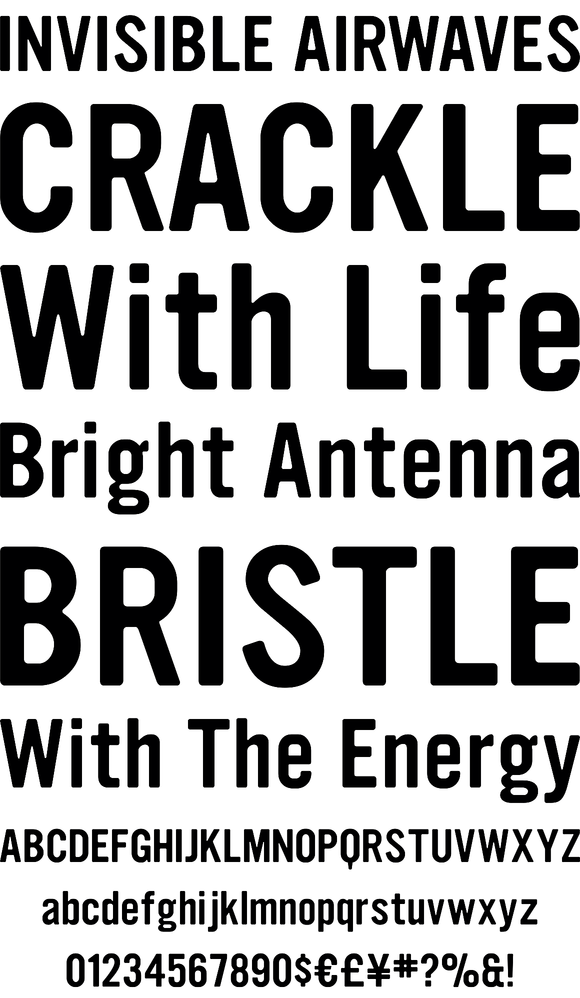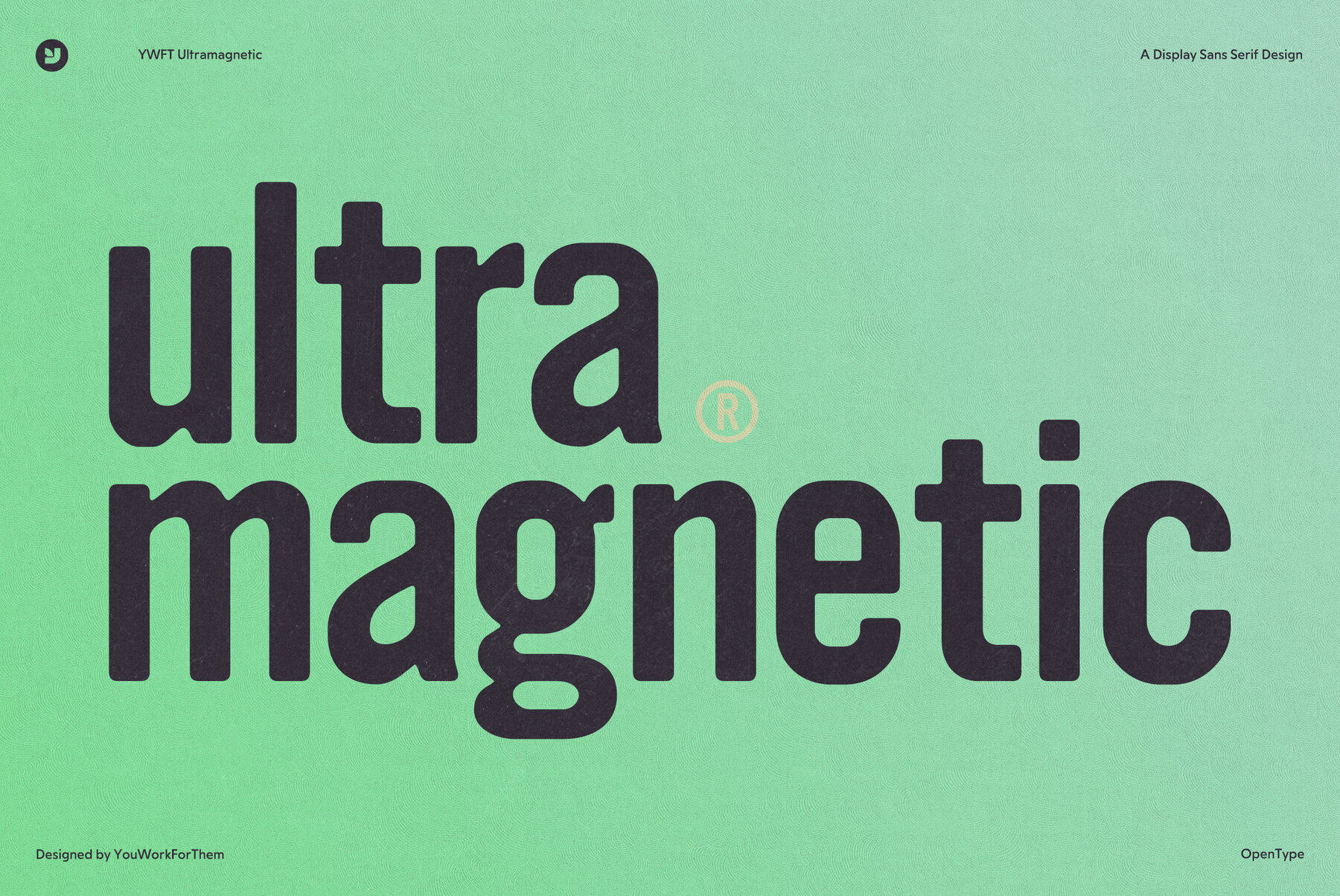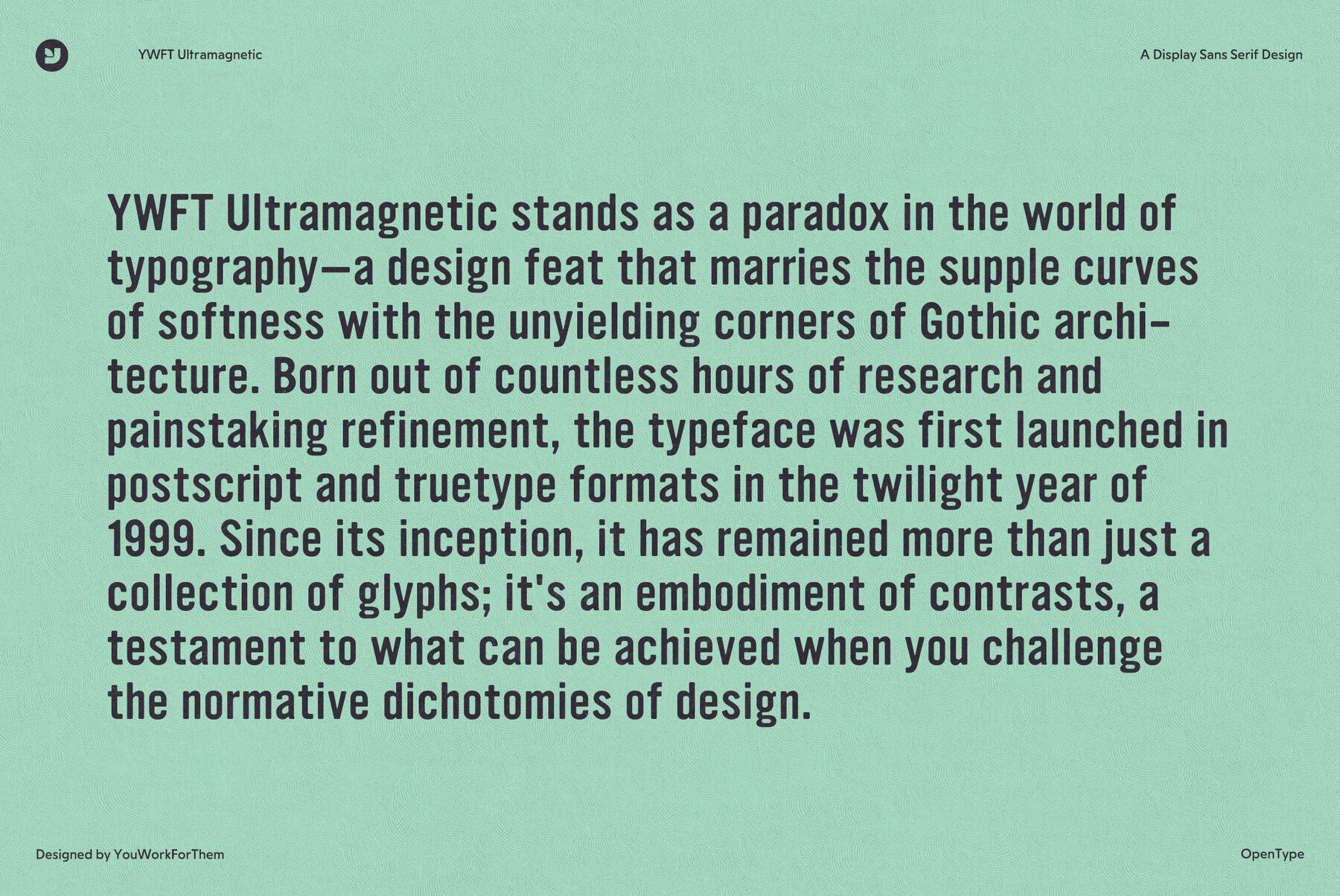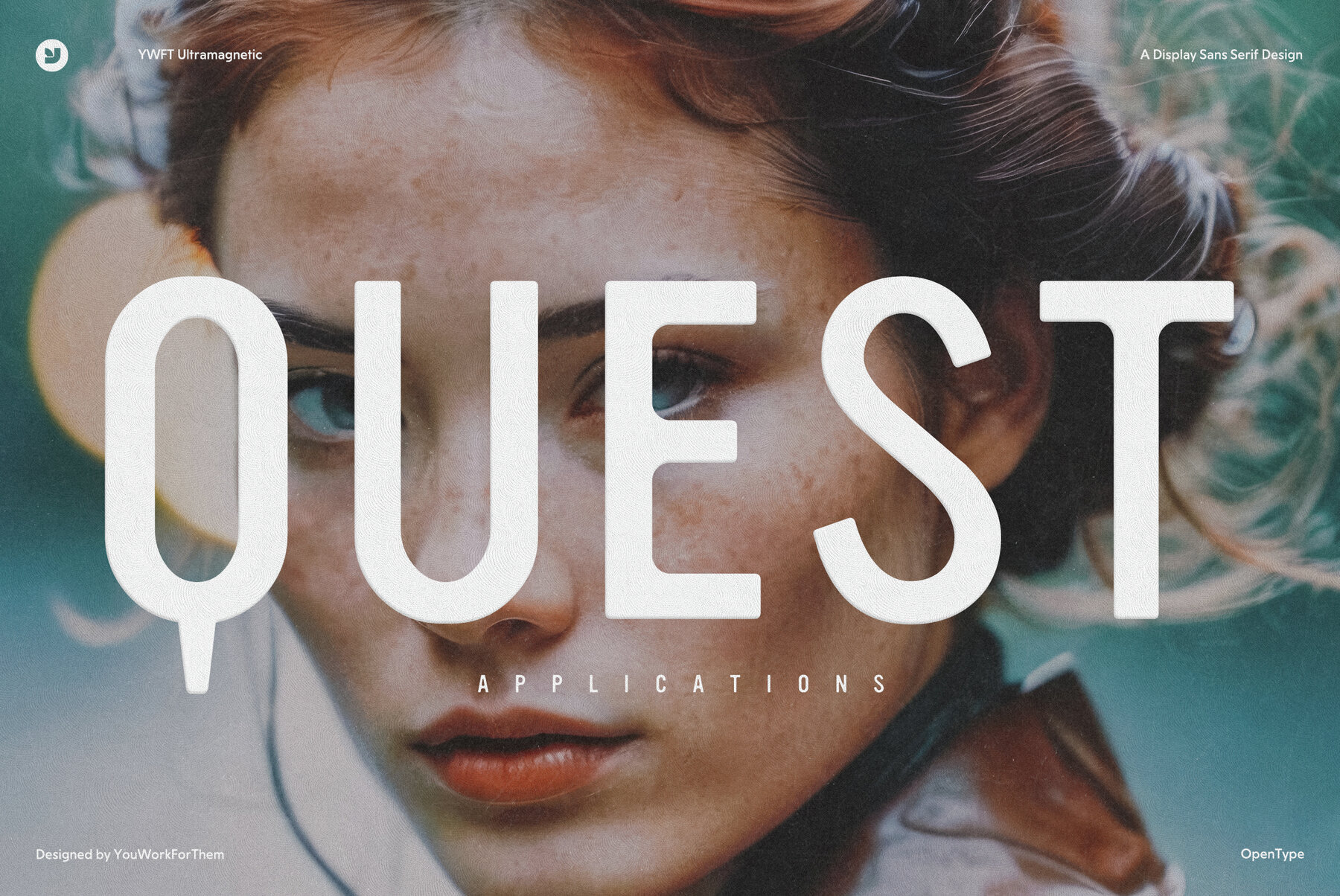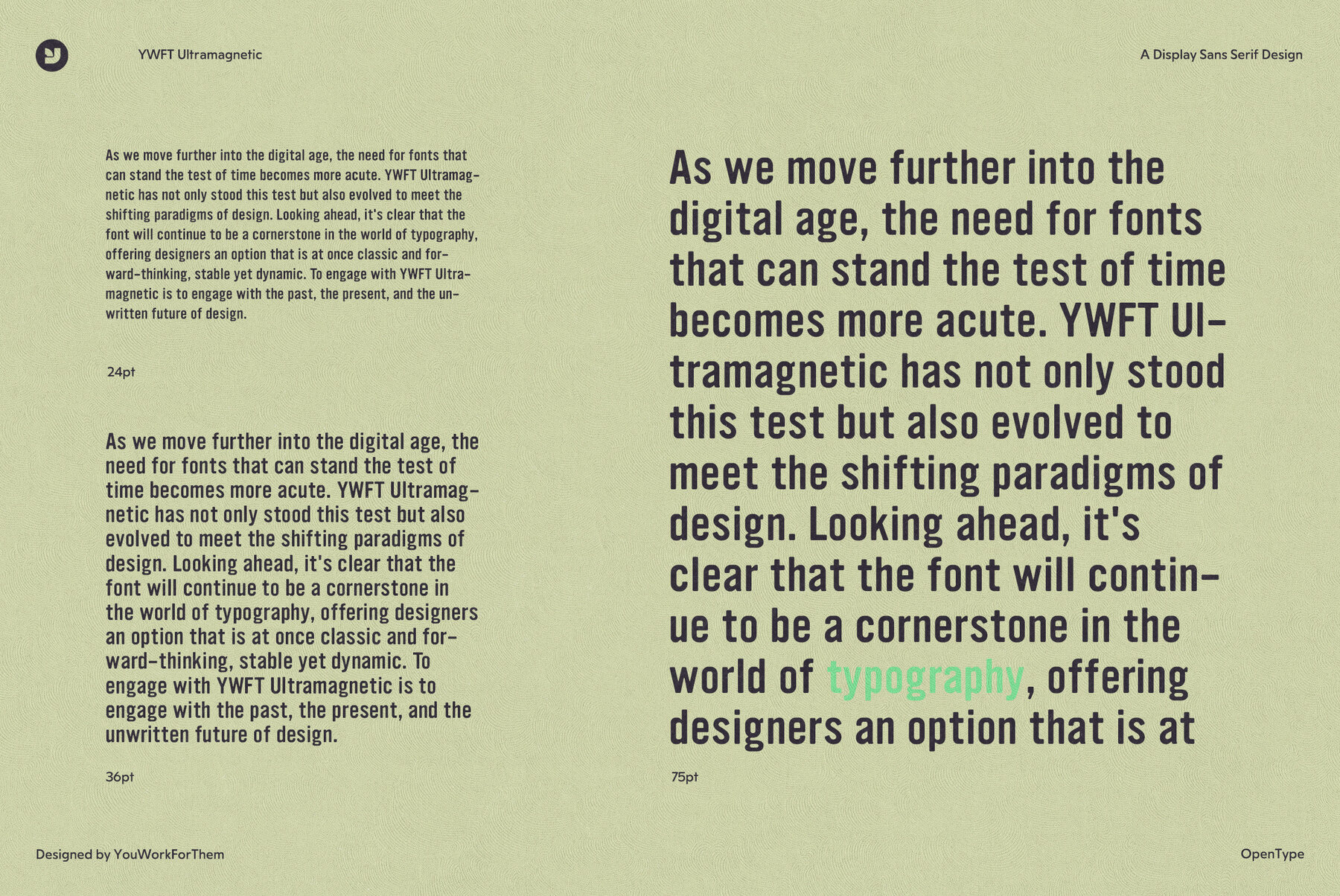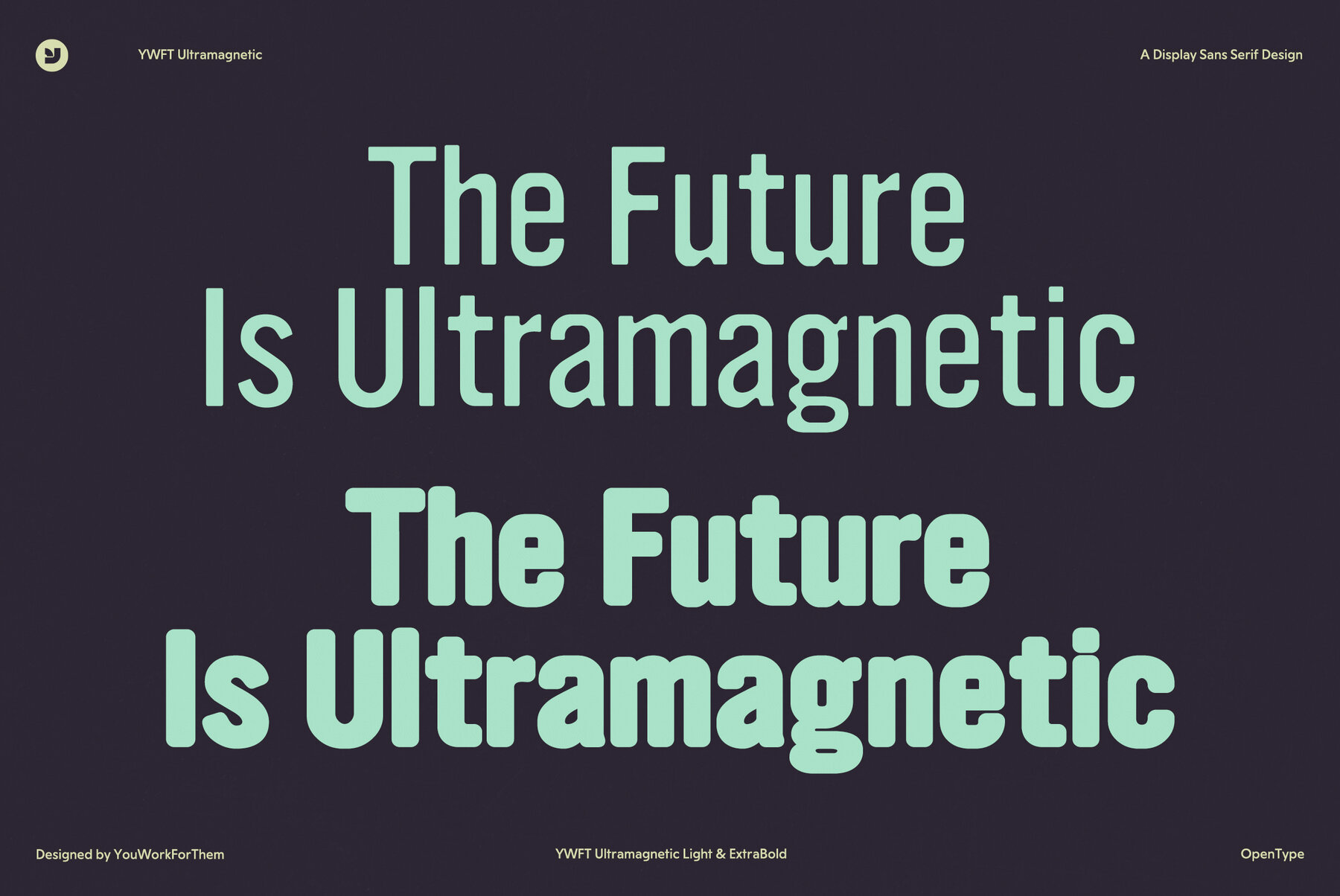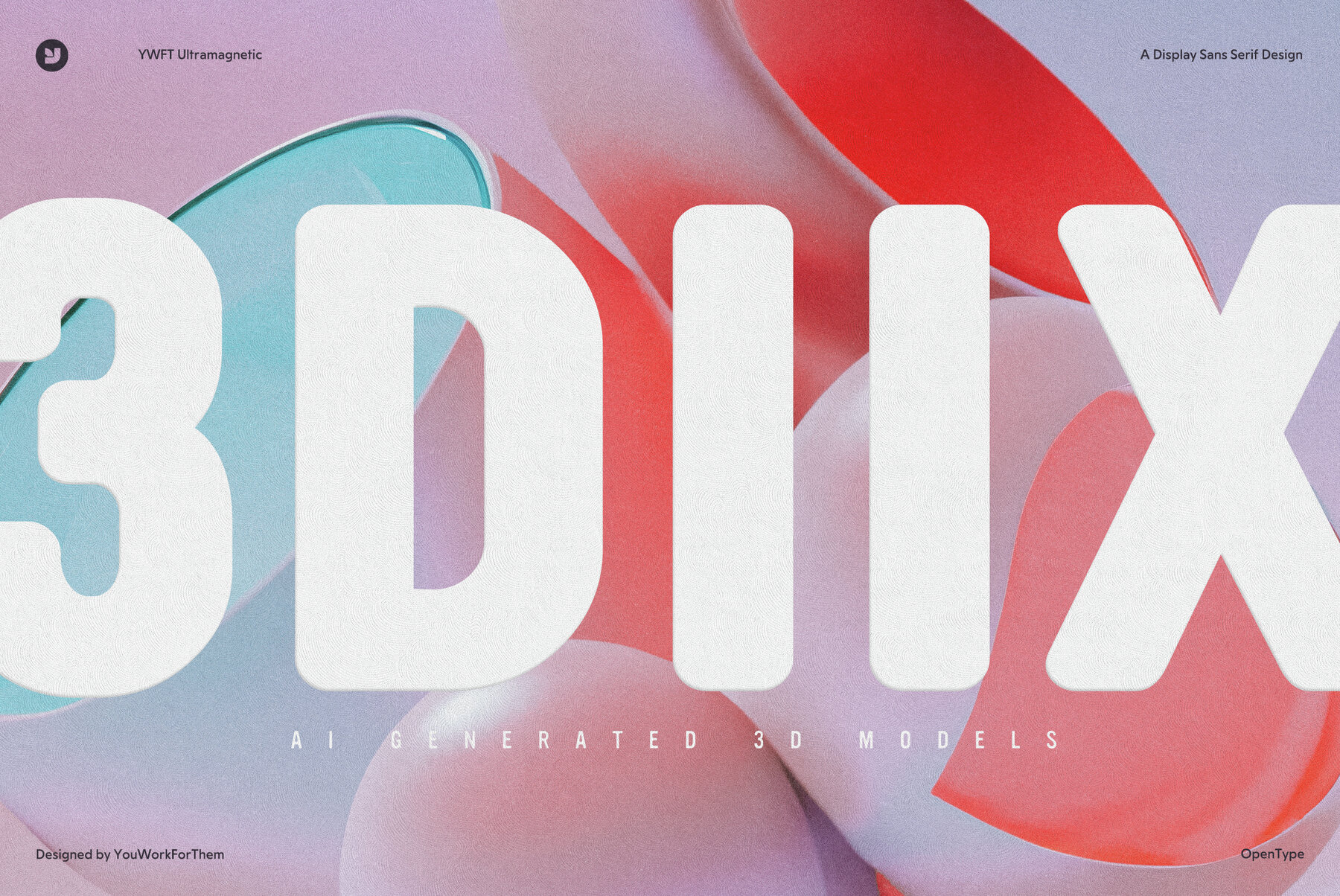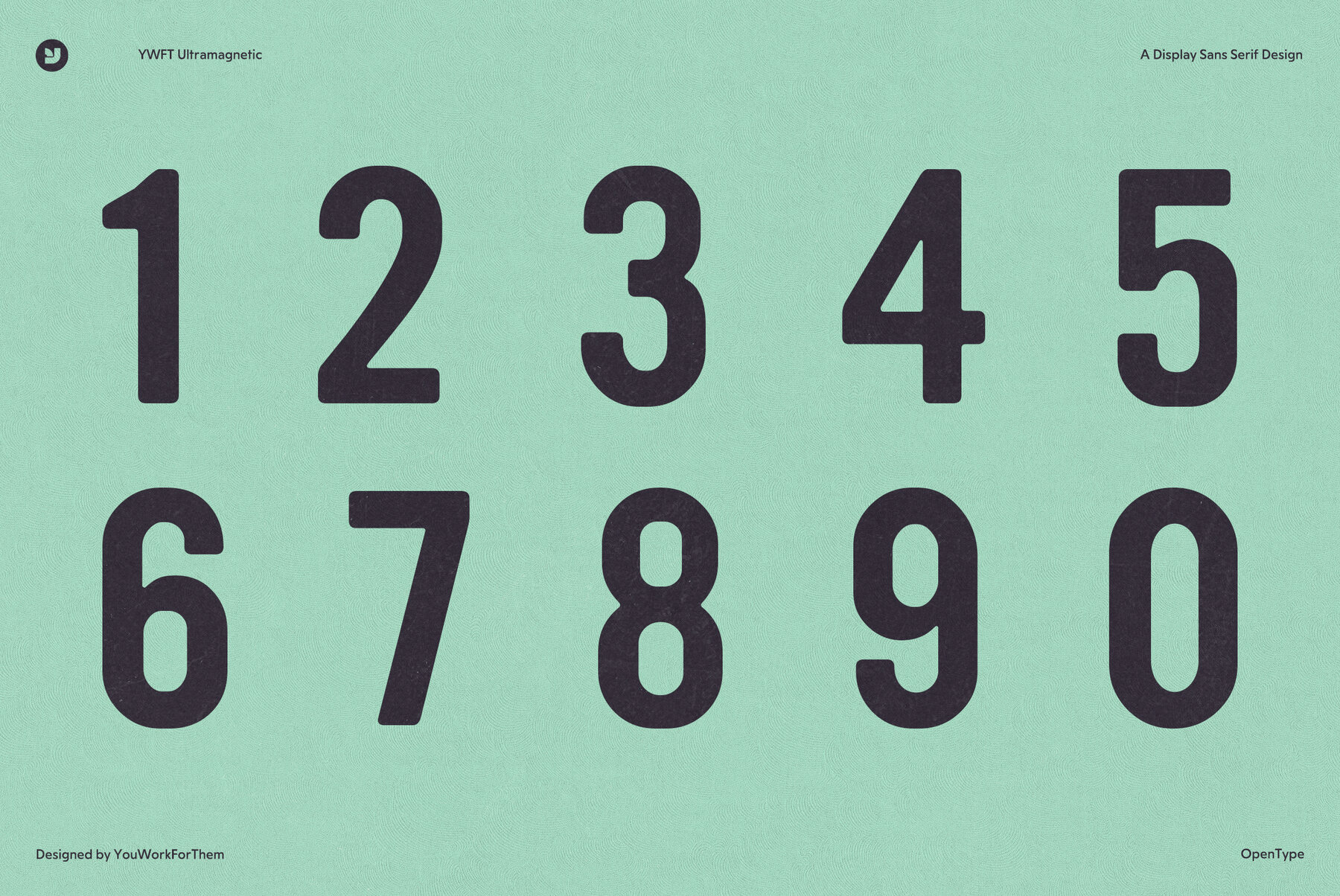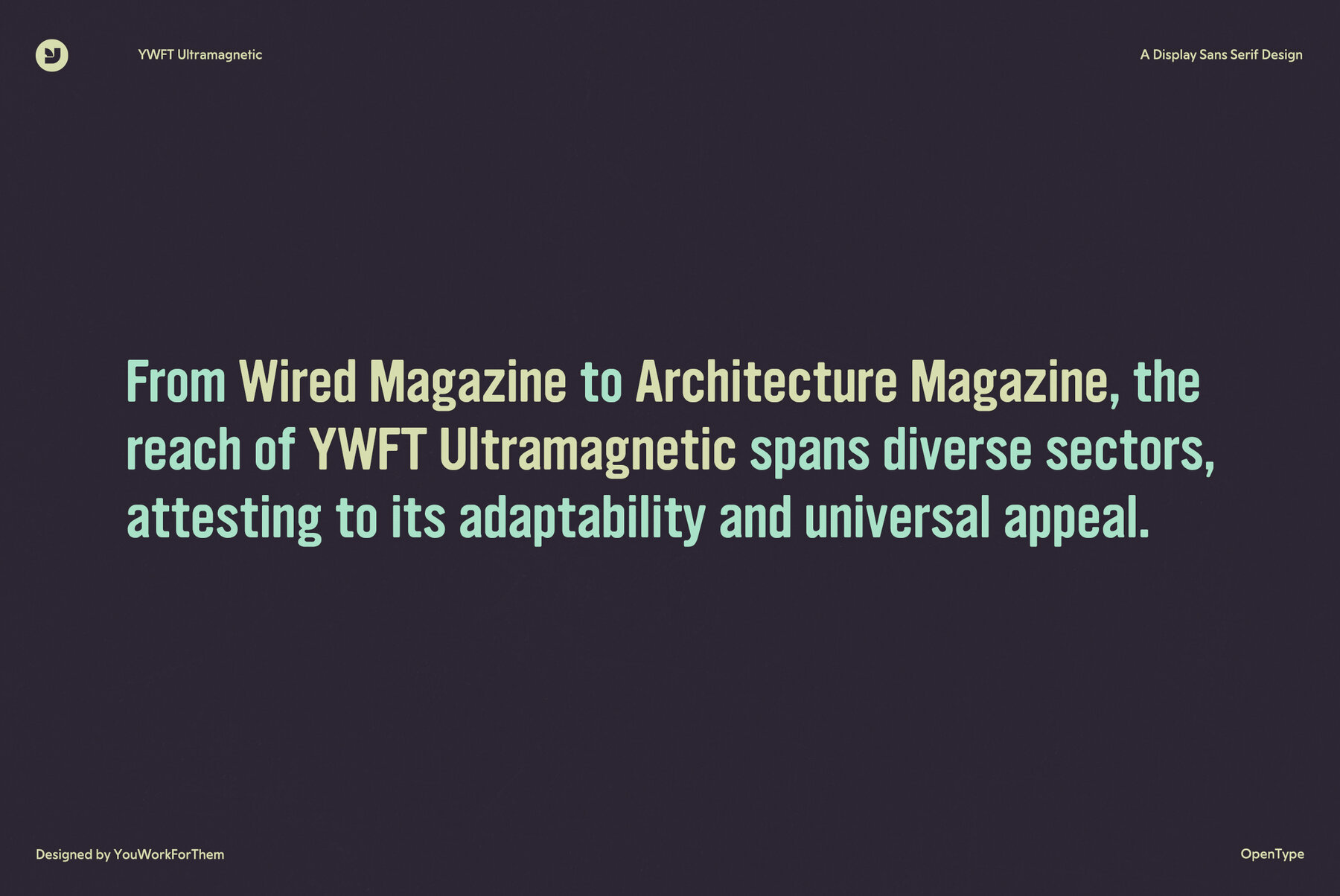
YWFT Ultramagnetic Font
For years, the elusive question has hovered in design circles: Can a typeface be both soft and gothic? YWFT Ultramagnetic not only answers this question affirmatively, but it also sets a benchmark in the category. Born out of meticulous research and multiple iterations, it's a typeface that has risen to be an industry favorite since its first release in 1999. Anchoring its position among YWFT's top-selling exclusives, Ultramagnetic has a storied history. Between 2002 and 2006, it dominated our top ten list, often claiming the coveted Number One spot. Its versatility and aesthetic appeal have made it a go-to choice for big names such as Harley Davidson, Starbucks, and Disney Channel, to name a few. Recognizing the evolving demands of the digital age, YWFT Ultramagnetic underwent a transformation in 2010, converting from its original PostScript/TrueType format to a more versatile OpenType format. This move has ensured that the typeface remains an enduring tool for designers in an array of disciplines.YWFT Ultramagnetic: The Epitome of Soft-Gothic Sophistication
A Legacy in Typography: A Typeface That Speaks Volumes
Evolved for Modern Needs: Opentype Conversion